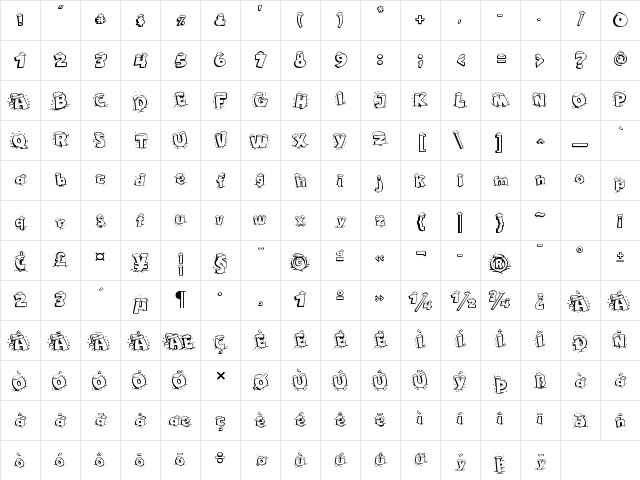
Maple 3 Cartoon has an approachable, lighthearted character - its loose, expressive forms are well-suited to children's content, casual branding, and fun-first design.
Font Pairing: Pairs well with a rounded or humanist sans for body copy, maintaining the friendly tone without relying on Maple 3 Cartoon to carry extended reading.
Pro Tip: Use Maple 3 Cartoon at larger display sizes where its expressive character can land. Pair with a clean, simple sans for body copy to maintain readability.